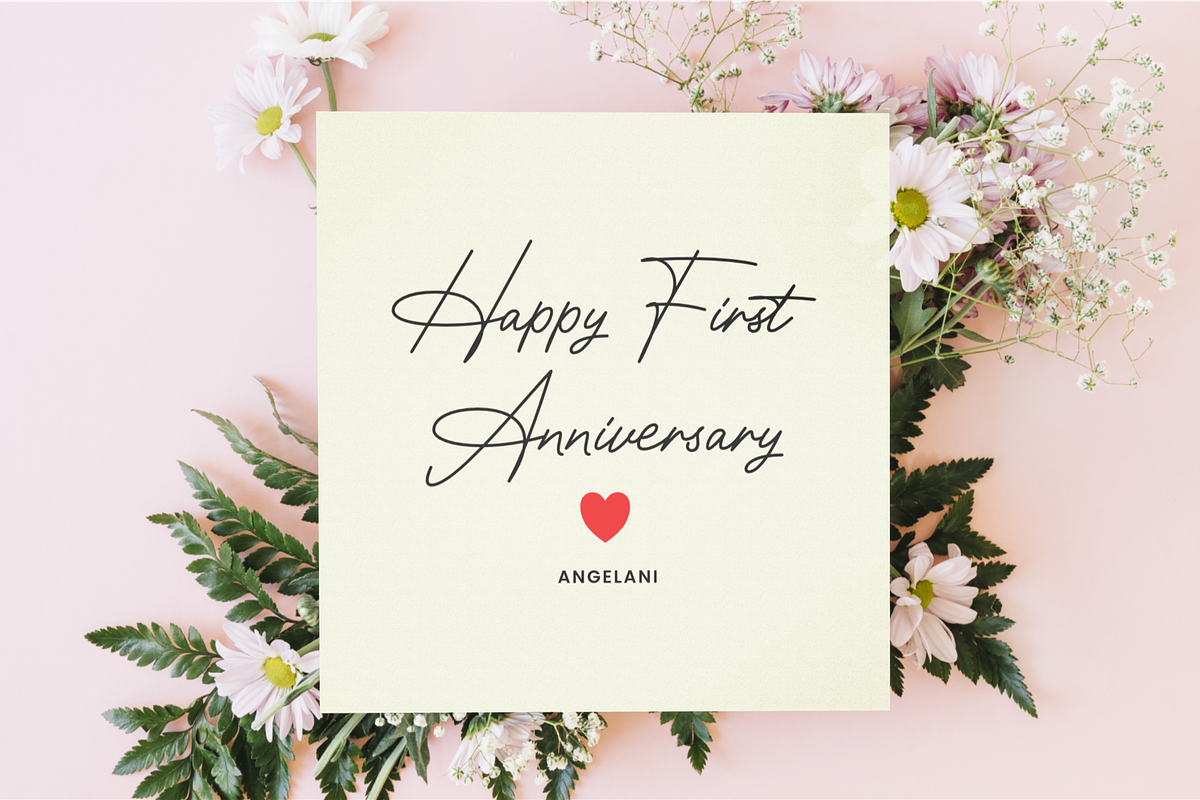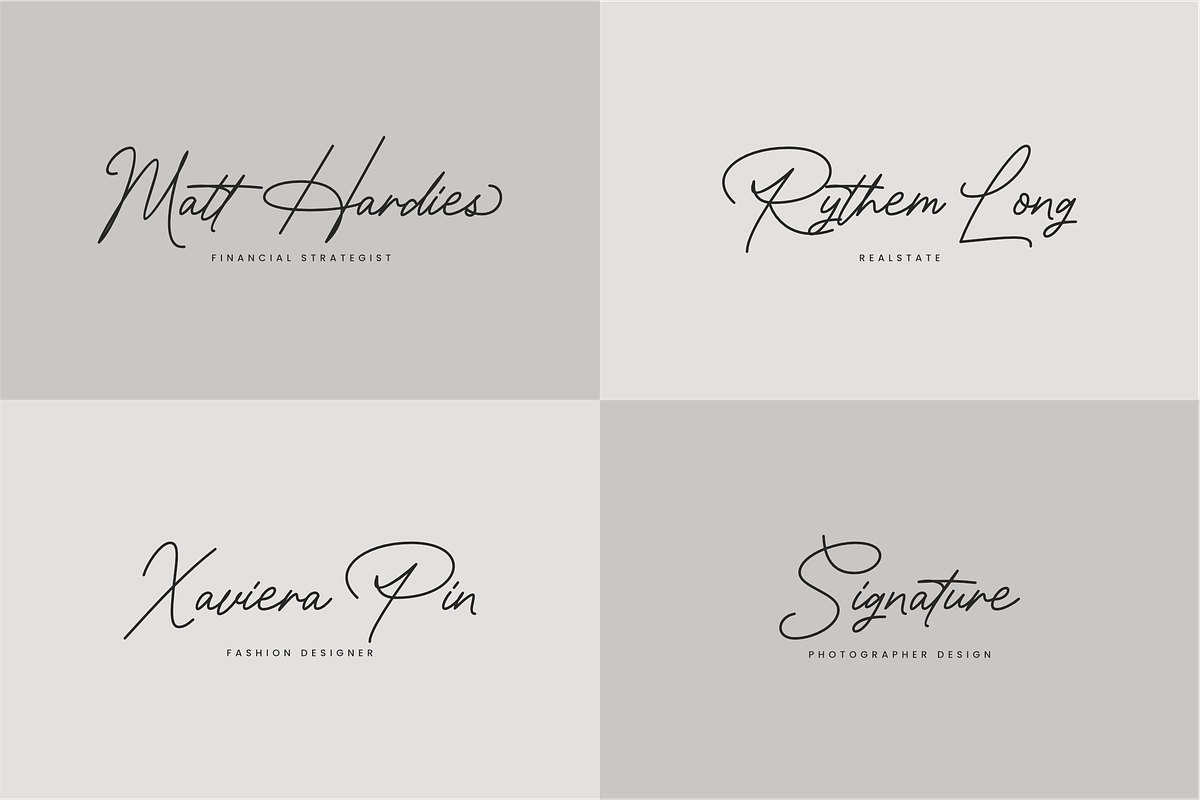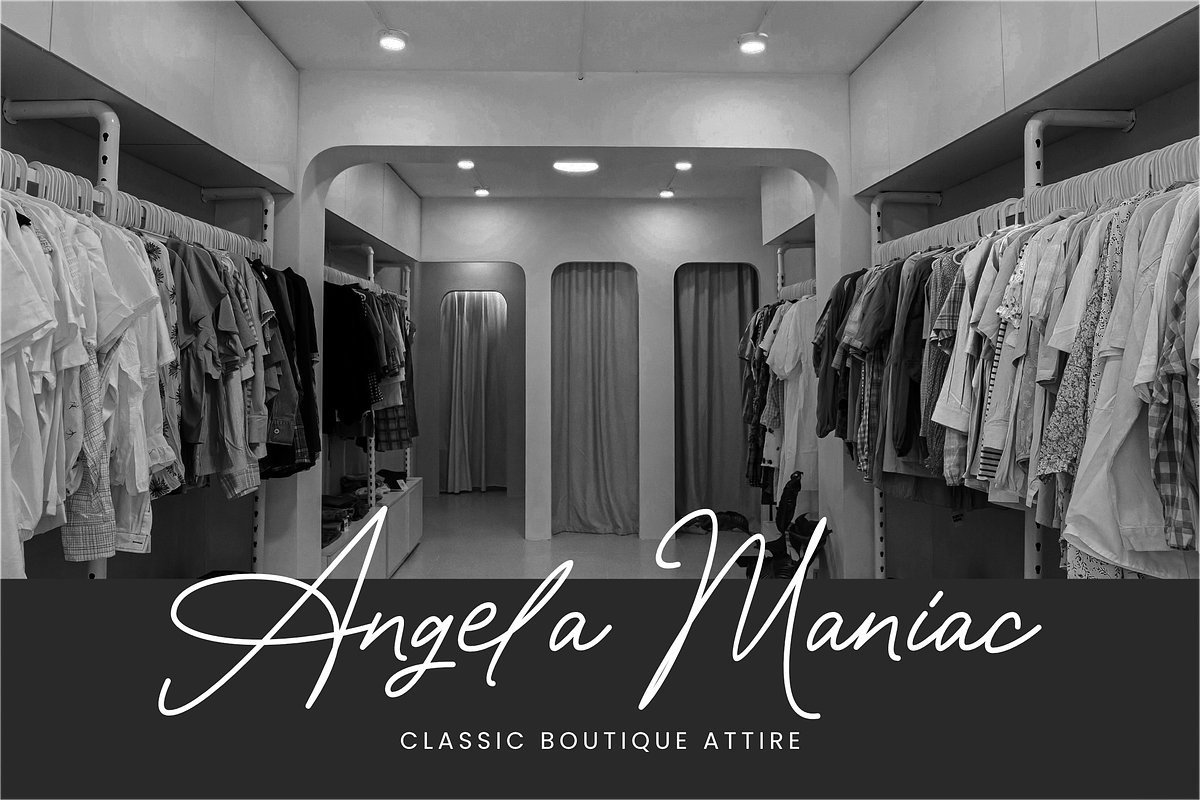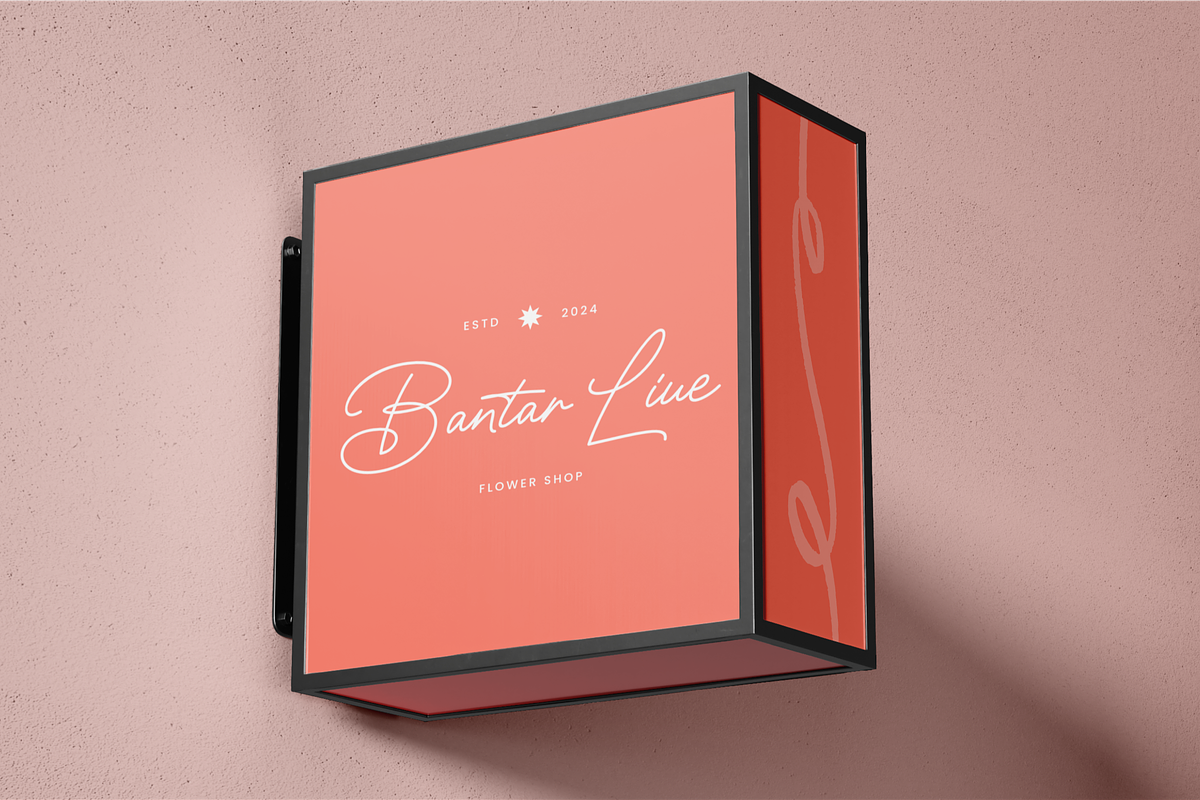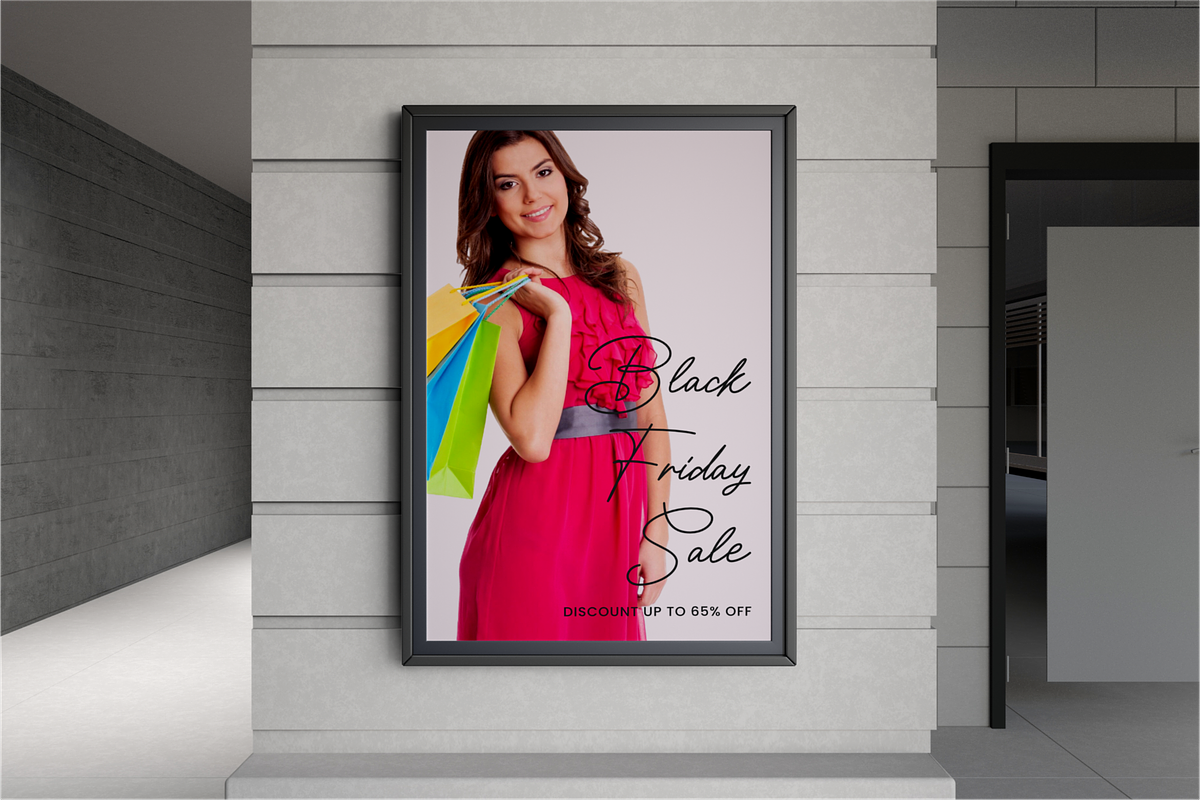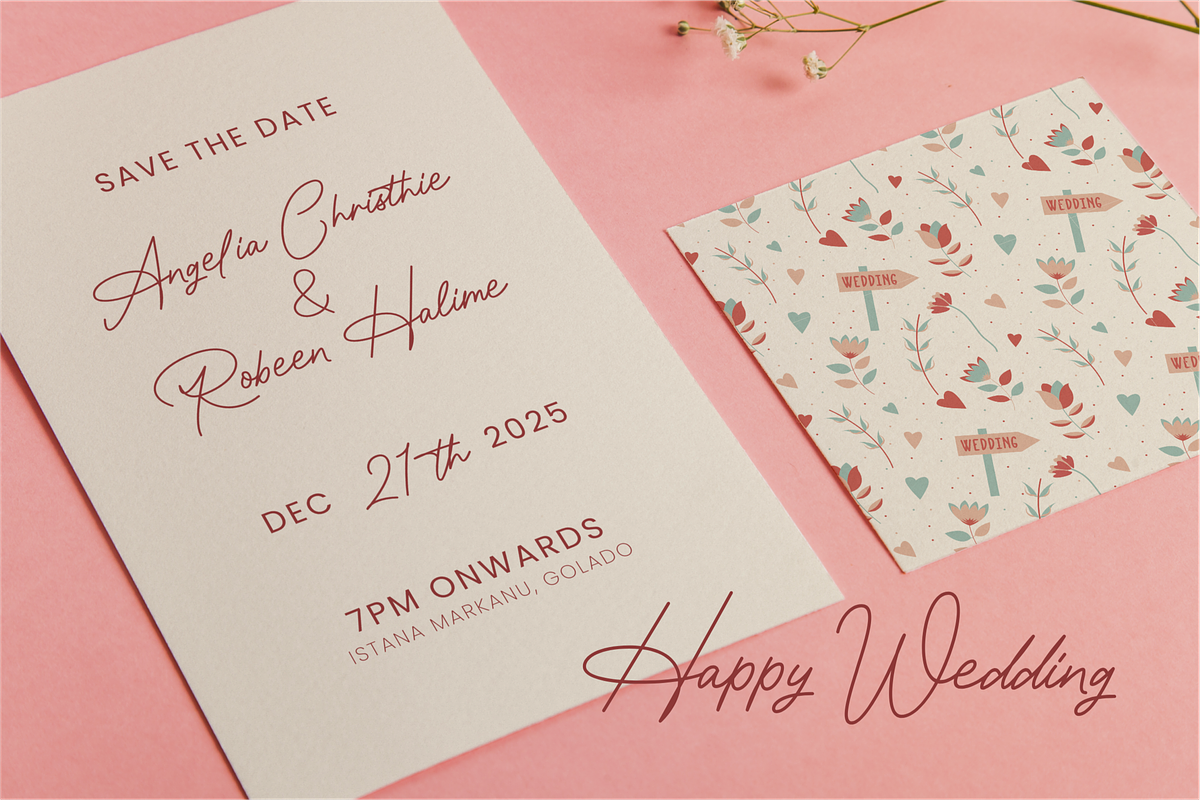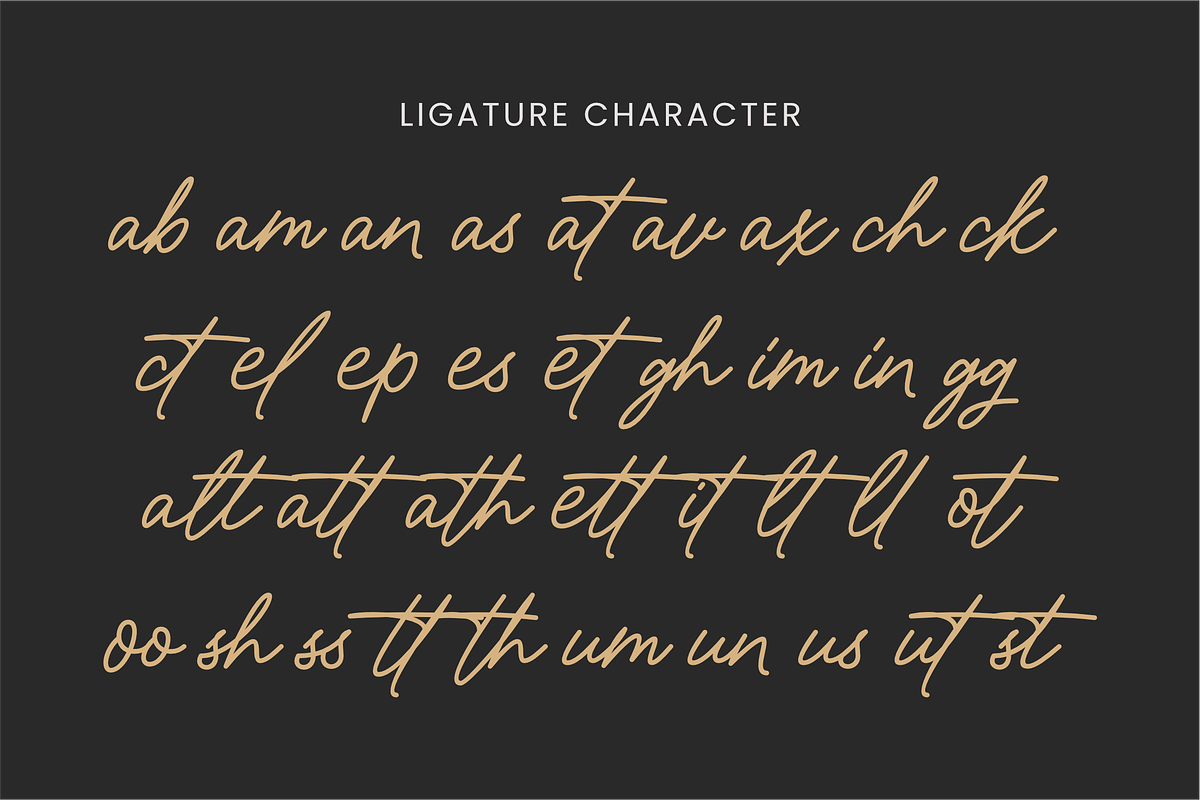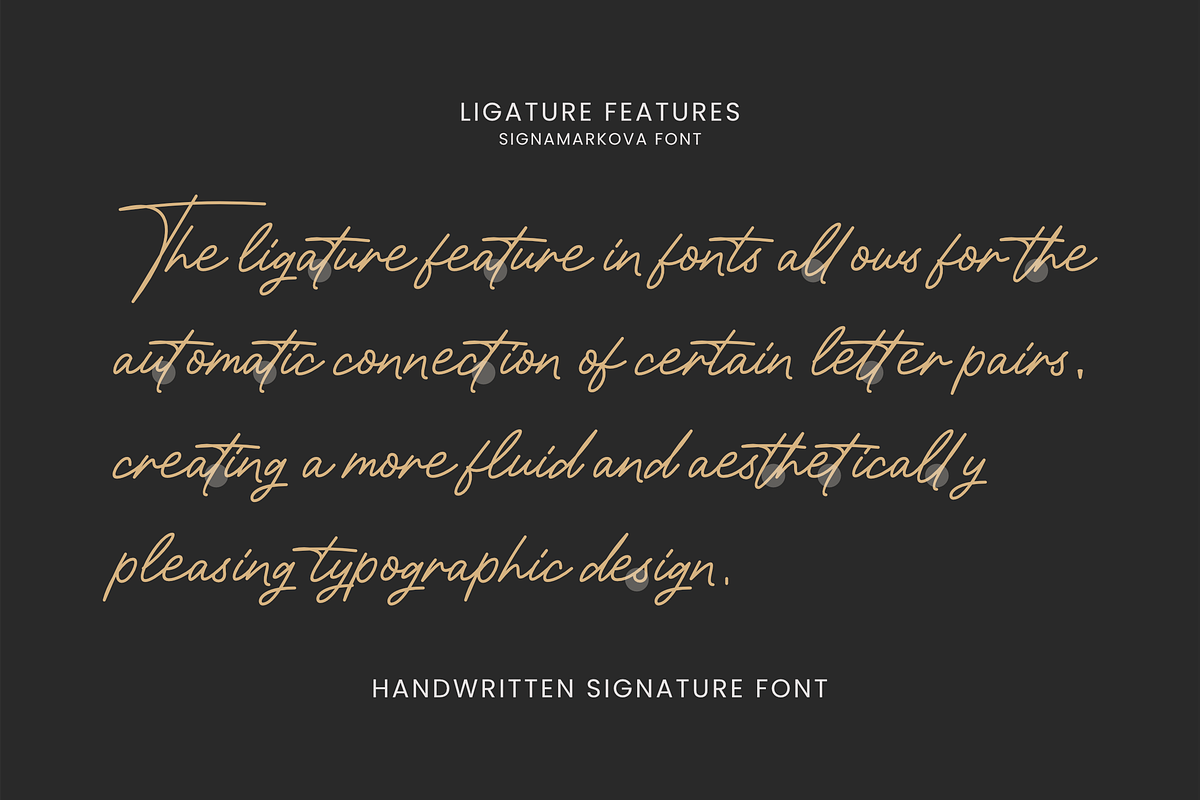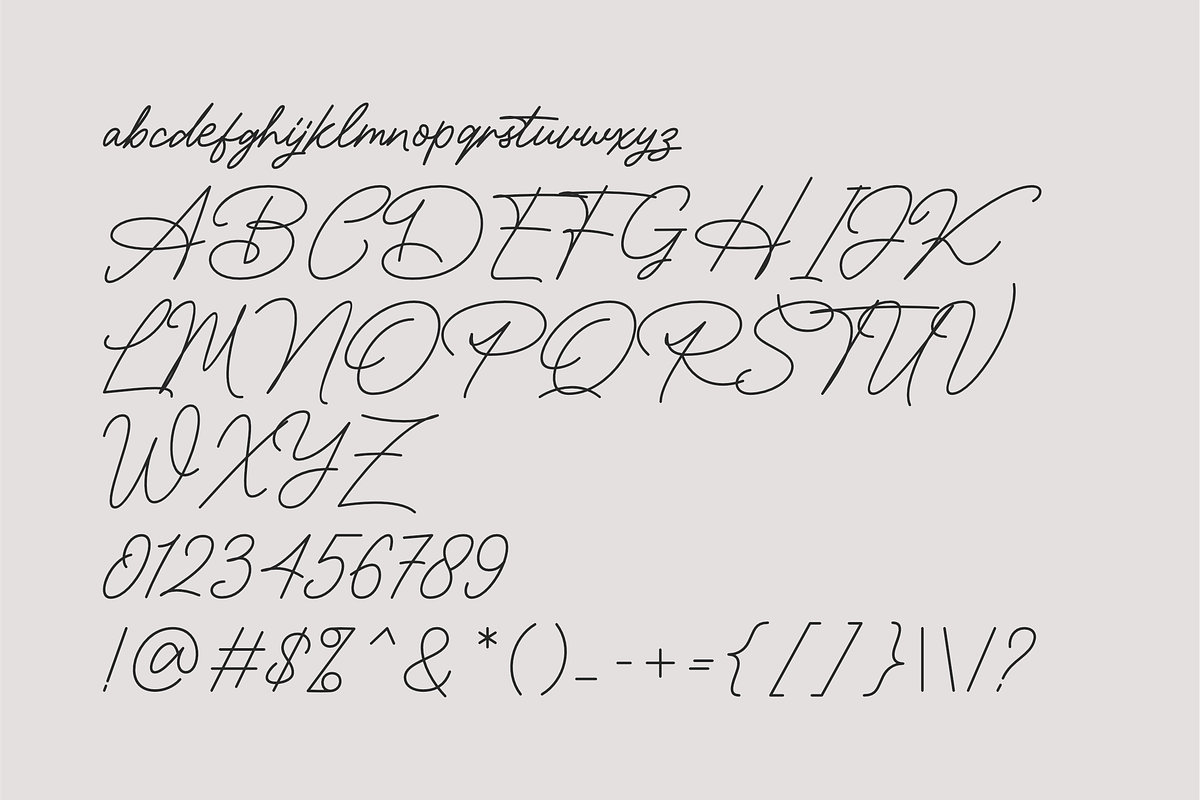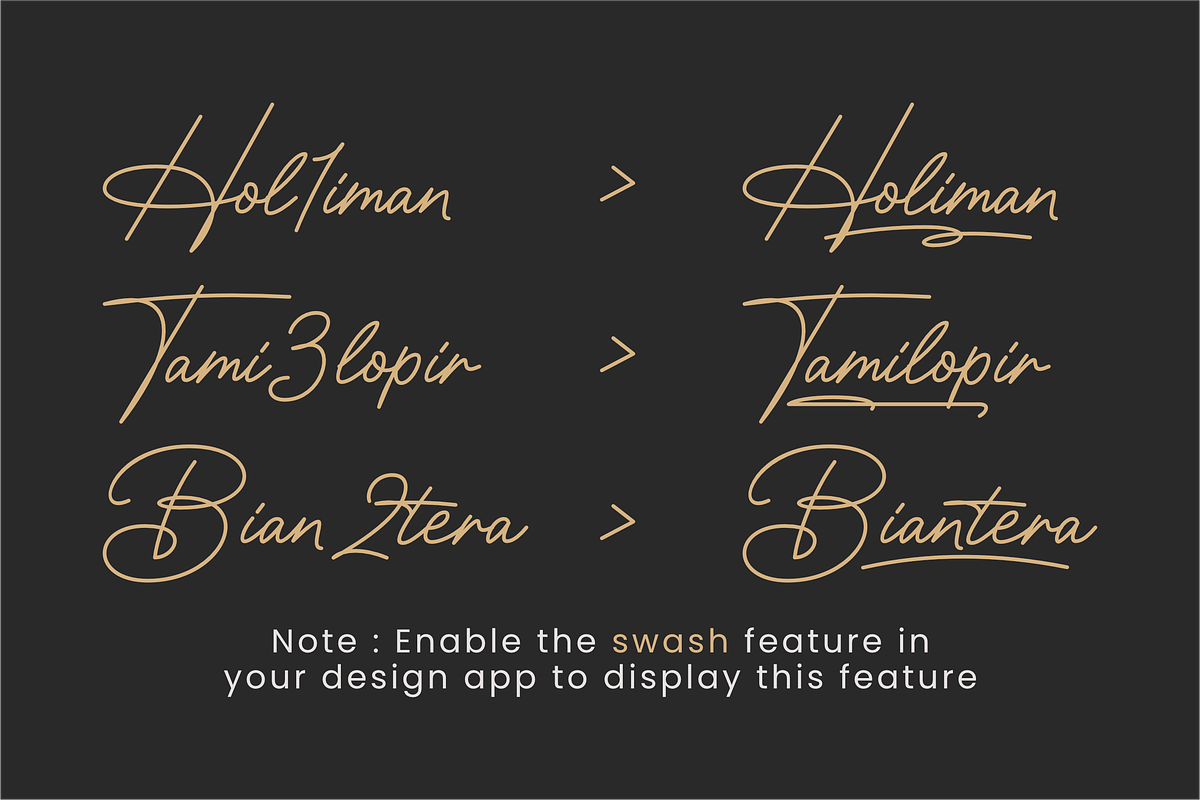
Signamarkova
Signamarkova is a handwritten signature font that blends elegance and uniqueness. With smooth strokes and captivating details, this font is designed to add an exclusive touch to every project. Perfect for branding, invitations, logos, or other creative works, Signamarkova offers a personal and sophisticated feel that makes every text stand out. Featuring beautiful ligature characteristics, this font is the perfect choice to highlight a premium and artistic style.